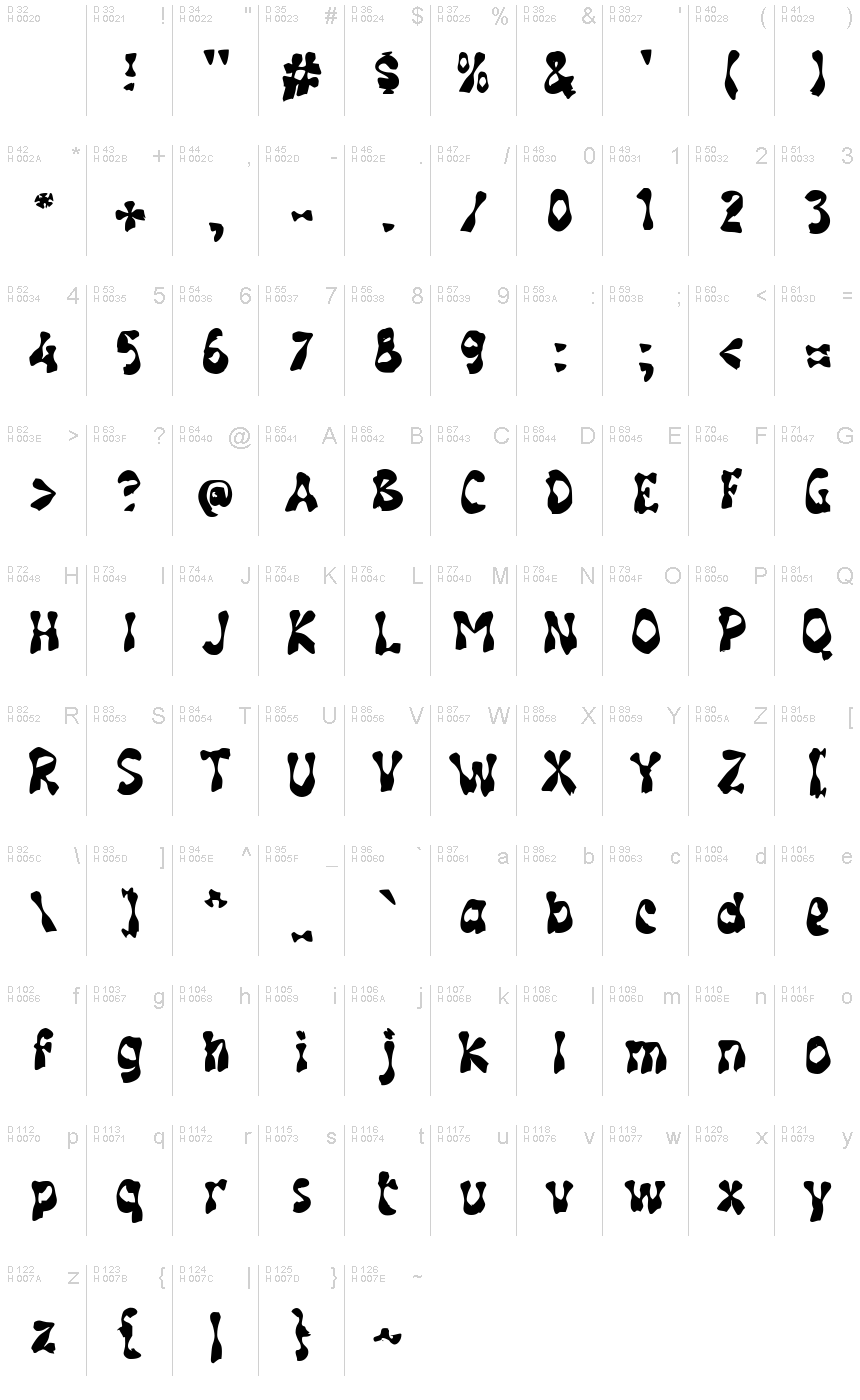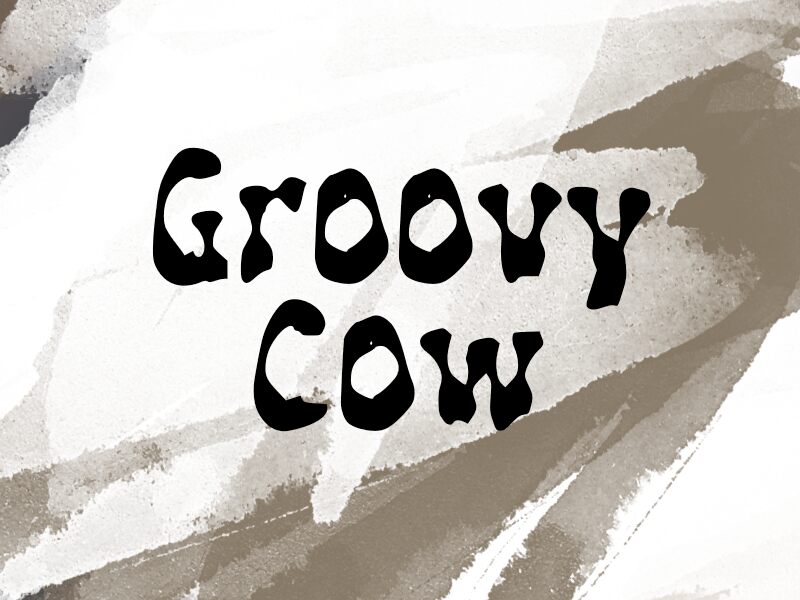
Groovy Cow
Groovy Cow, a bold and captivating display font crafted by wep, exudes a delightfully playful and whimsical charm. With its organic, hand-drawn aesthetic and dynamic letterforms, this font radiates a sense of carefree movement and energy. The bold, rounded shapes and unique character designs create a visually striking and memorable typographic experience.
This versatile font lends itself well to a variety of design applications, from vibrant branding and packaging to attention-grabbing headlines and eye-catching displays. Its distinctive style makes it an ideal choice for projects that aim to convey a lighthearted, playful, or retro-inspired vibe, such as in the fields of advertising, editorial design, or product labeling.